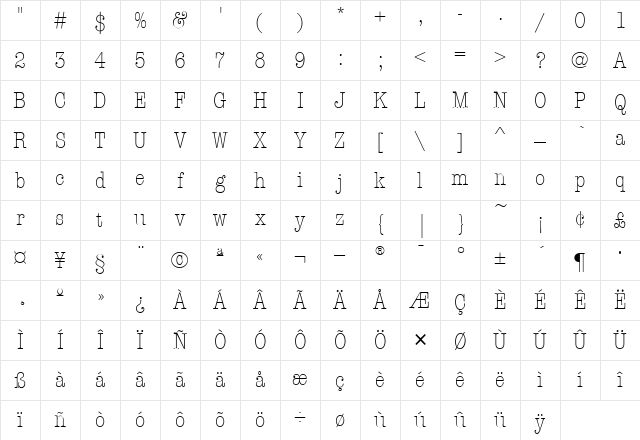
AmTypewriterCdITC Regular
Foundry: E+F Designstudios. ITC American Typewriter is a registered trademark of International Typeface Corporation
Design Context for AmTypewriterCdITC
AmTypewriterCdITC uses fixed-width spacing throughout, giving it the structured, systematic character associated with coding environments and technical documentation.